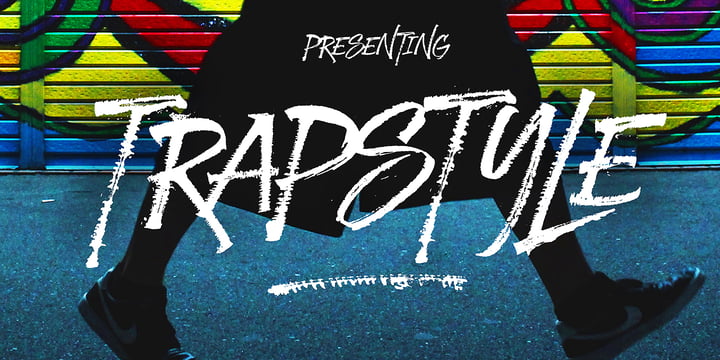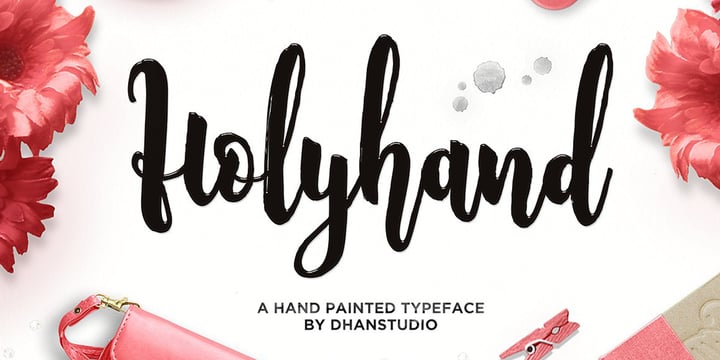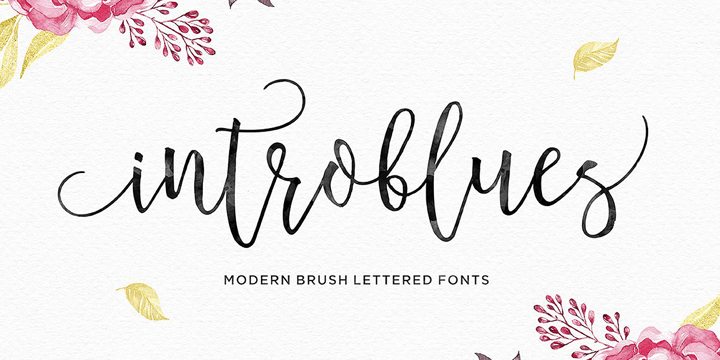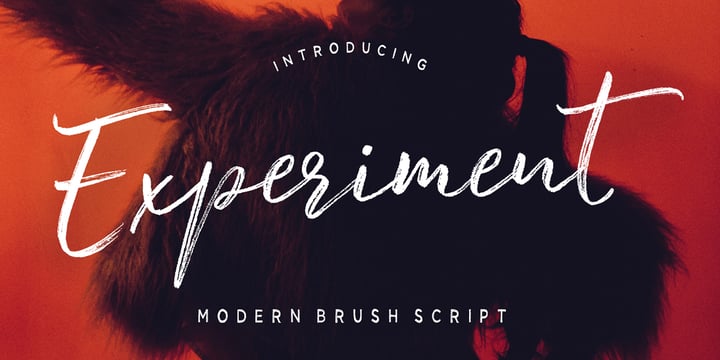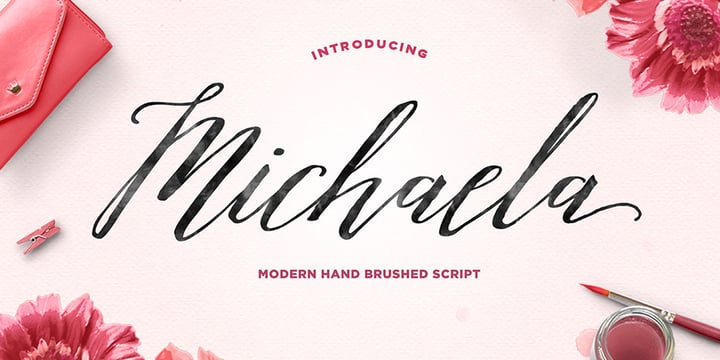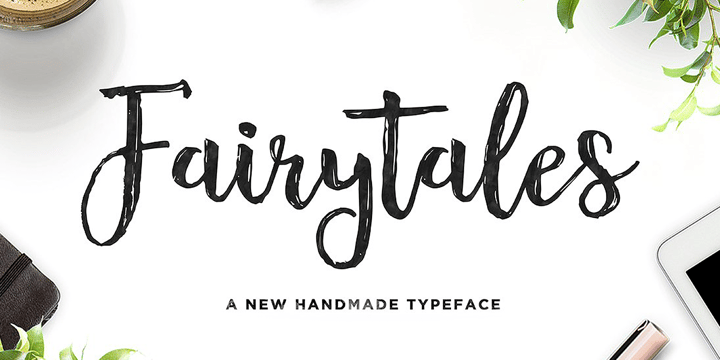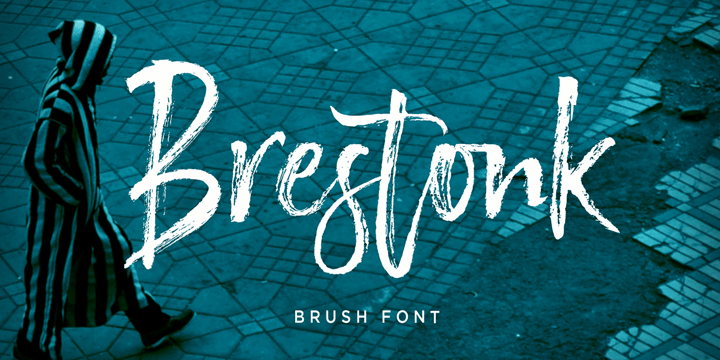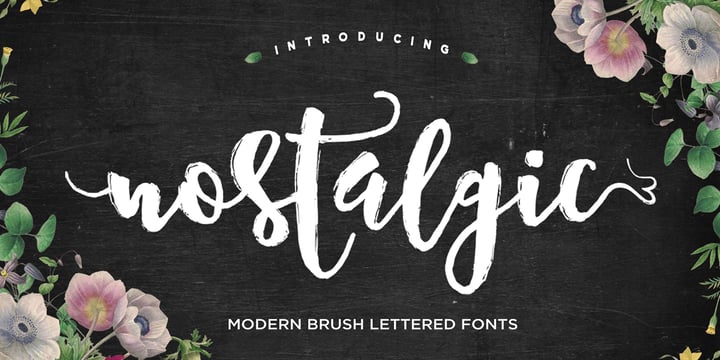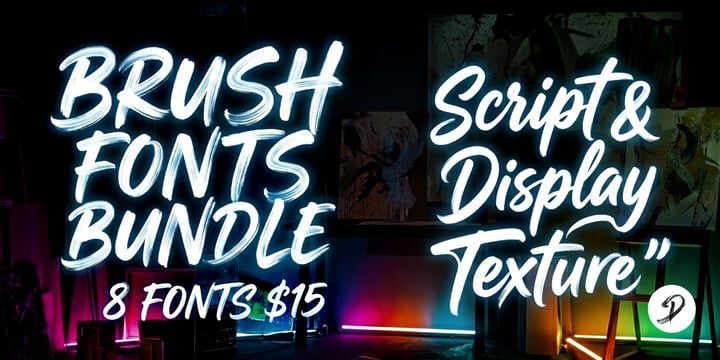
BRUSH FONTS BUNDLE
Dhan Studio Handwritten Brush Fonts Bundle includes 8 original handwritten brush fonts designed to add a natural, expressive touch to your creative projects.